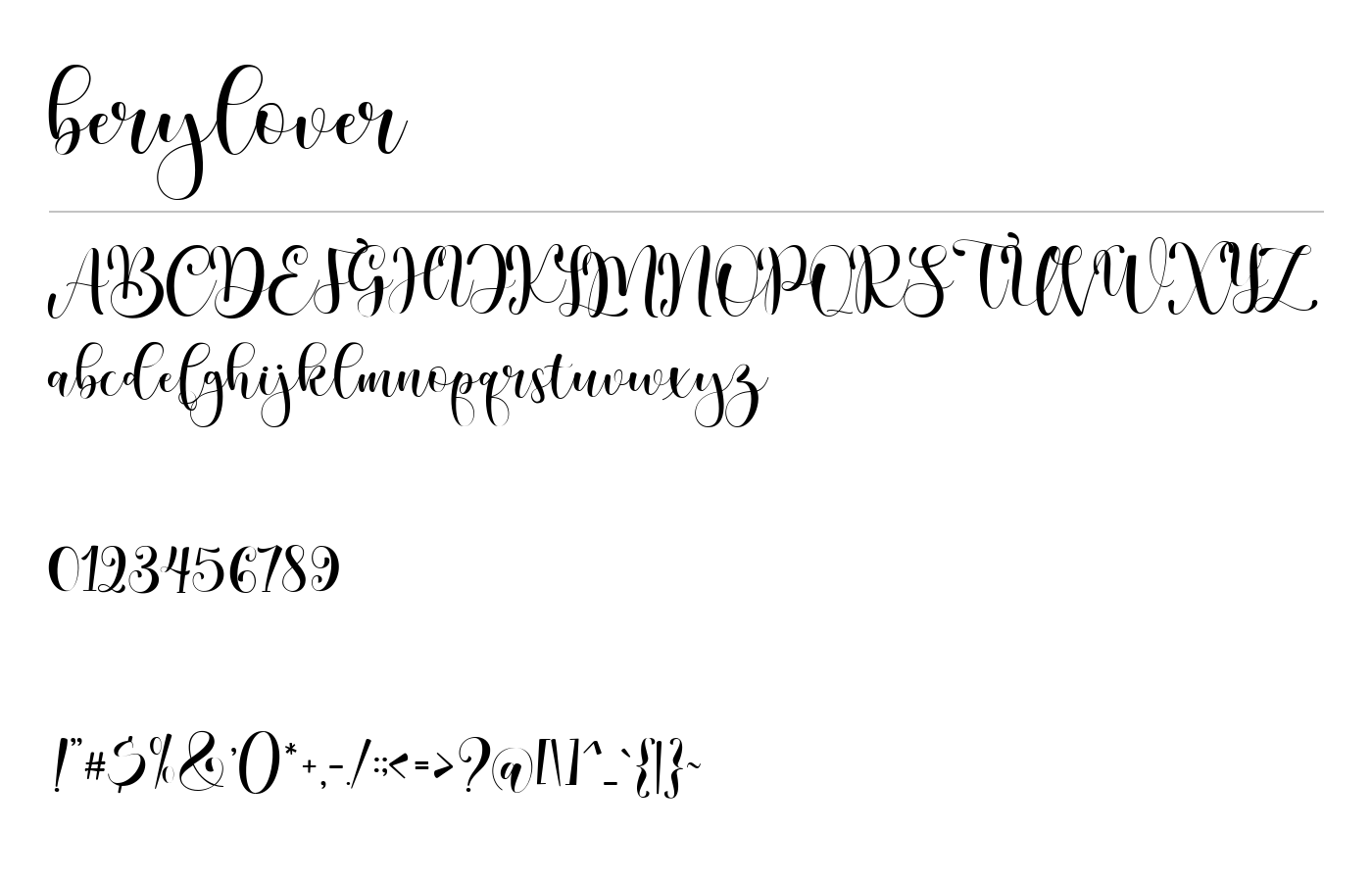
Berylover is an elegant script font characterized by its flowing, calligraphic strokes and fine contrast between thick and thin lines, lending it a refined and graceful appearance. Its ornamental swashes and curly terminals create a romantic and whimsical feel, making it perfect for luxury branding, wedding invitations, and feminine editorial designs where a touch of sophistication and charm is desired. This font shines in headlines and decorative accents, adding personality and elegance to any project.
berylover Font
About berylover Font